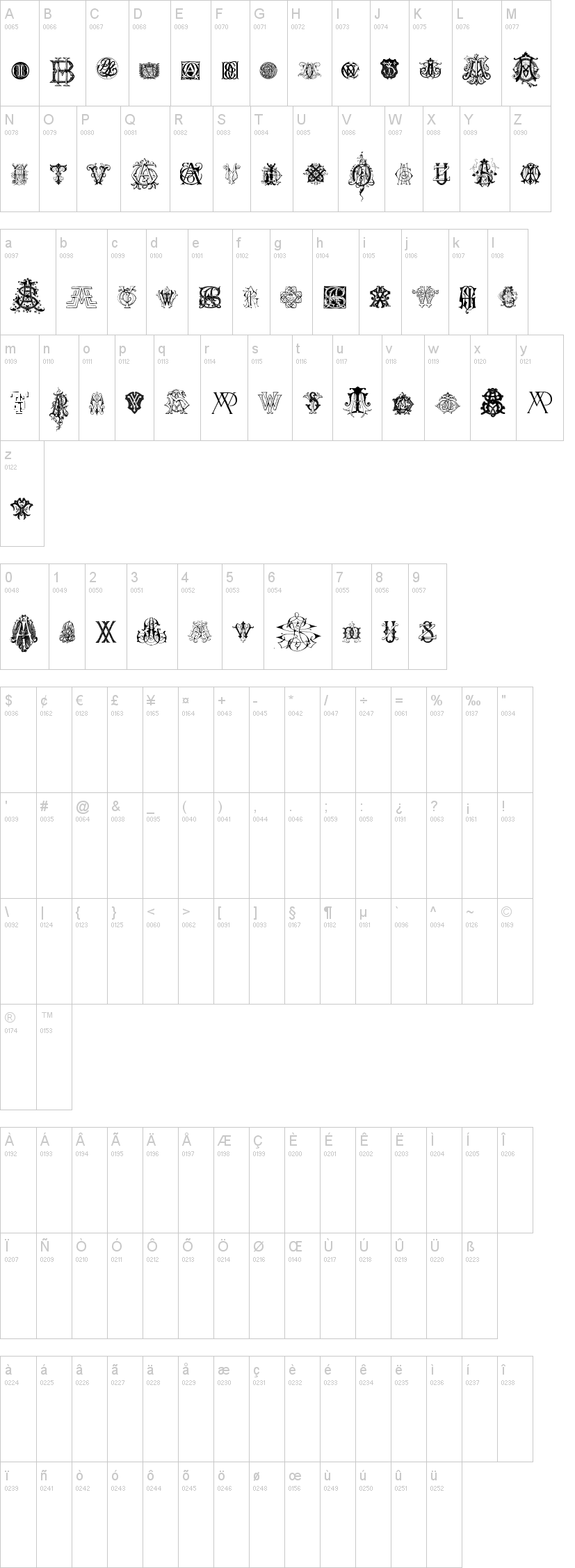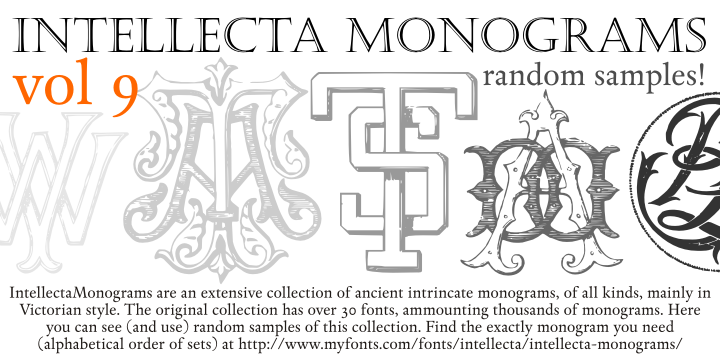
Note of the authorIntellecta Monograms Random Samples Nine, by Intellecta Design
Intellecta Monograms Random Samples Nine is a random and limited set version of Intellecta Monograms, an extensive collection of fonts ammouting thousands of intrincated and vintage monograms, mainly in Victorian style, a Intellecta's best-seller over the last five years. To purchase the original fonts (alphabetical order of sets) and commercial licences, please, visit: